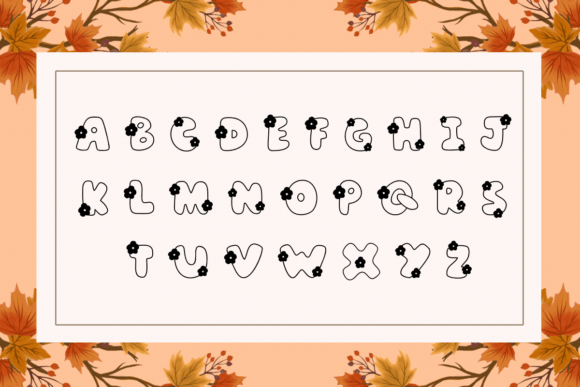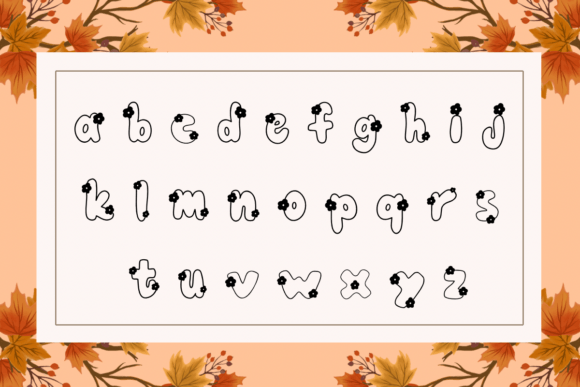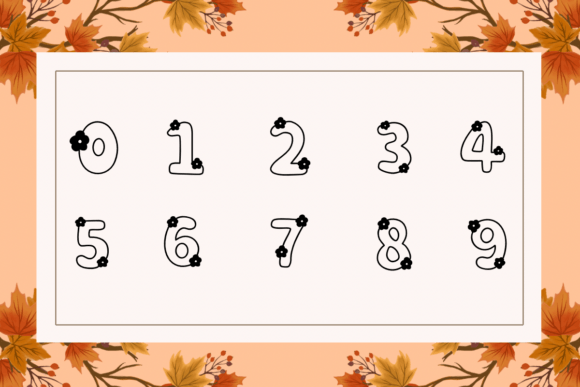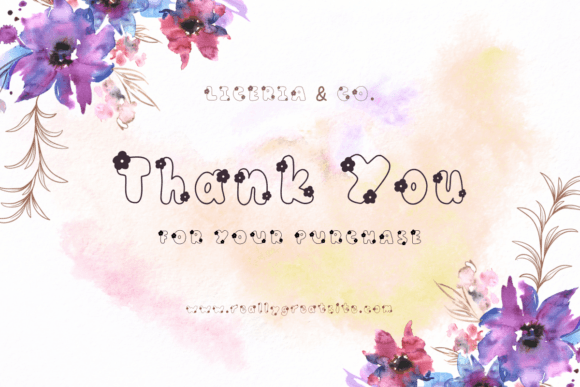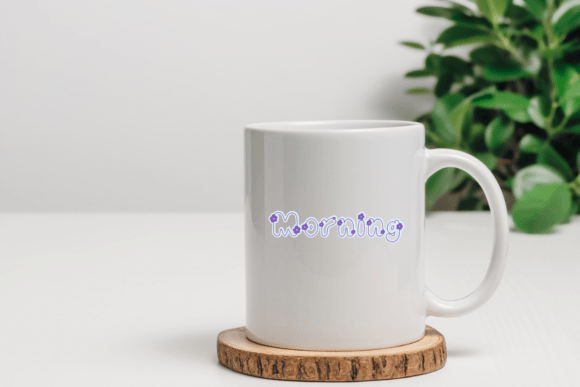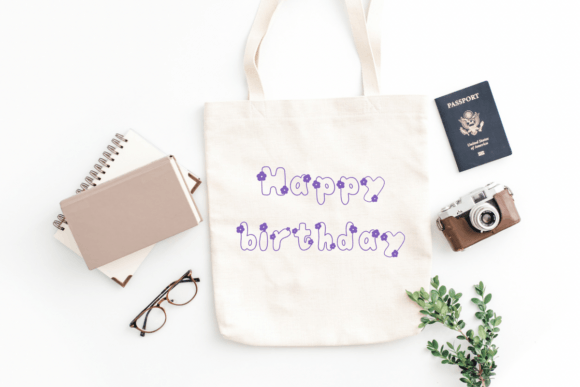
Introducing Autumn Font: Add a Touch of Cozy Charm to Your Designs
As the seasons change and autumn leaves start to fall, designers and crafters are on the lookout for fonts that capture the cozy, natural essence of this time of year. If you’re searching for a font that embodies the warmth and charm of autumn, look no further than Autumn Font. This bold, handwritten font features hollow letters adorned with small, delicate flowers, making it perfect for fall-themed designs or adding a cute touch to your projects.
What Makes Autumn Font Special?
Autumn Font is a unique and eye-catching font that stands out from the crowd. Its bold, handwritten style gives it a personal and approachable feel, while the hollow letters add a touch of whimsy and playfulness. But what really sets Autumn Font apart is the intricate floral decorations that adorn each letter. These delicate flowers add a touch of elegance and sophistication, making Autumn Font suitable for a wide range of design projects.
Perfect for Fall-Themed Designs
Autumn Font is specifically designed with fall-themed designs in mind. Whether you’re creating invitations for a harvest-themed party, designing a seasonal greeting card, or crafting a social media post to promote a fall sale, Autumn Font is the perfect choice. The font’s autumnal aesthetic will instantly evoke the cozy, natural feelings of the season, drawing your audience in and making them feel like they’re part of something special.
Add a Cute Touch to Your Projects
But Autumn Font isn’t just limited to fall-themed designs. Its playful, whimsical style makes it a great addition to any project that needs a touch of personality. Whether you’re designing a nursery rhyme illustration, creating a set of cute social media graphics, or crafting a handmade card, Autumn Font is sure to bring a smile to your audience’s face. The font’s delicate flowers and hollow letters add a touch of sweetness and innocence, making it perfect for projects that need a playful, childlike feel.
Tips for Using Autumn Font
To get the most out of Autumn Font, here are a few tips to keep in mind:
- Use it for headings and titles: Autumn Font is perfect for headings and titles, where its bold, eye-catching style can really make an impact. Try using it to create a seasonal header for a blog post or social media graphic.
- Pair it with a simple font: To really make Autumn Font shine, try pairing it with a simple, sans-serif font for body text. This will create a nice contrast between the bold, decorative font and the clean, easy-to-read text.
- Experiment with colors: Autumn Font looks great in a range of autumnal colors, from warm oranges and yellows to rich browns and reds. Try experimenting with different color combinations to find the one that works best for your design.
Autumn Font is a unique and versatile font that’s perfect for designers and crafters looking to add a touch of cozy charm to their projects. With its bold, handwritten style and delicate floral decorations, it’s sure to evoke the natural, whimsical feelings of the autumn season. Whether you’re creating fall-themed designs or just looking for a font that adds a playful touch, Autumn Font is a great choice. So why not give it a try and see how it can add a touch of autumnal magic to your designs?